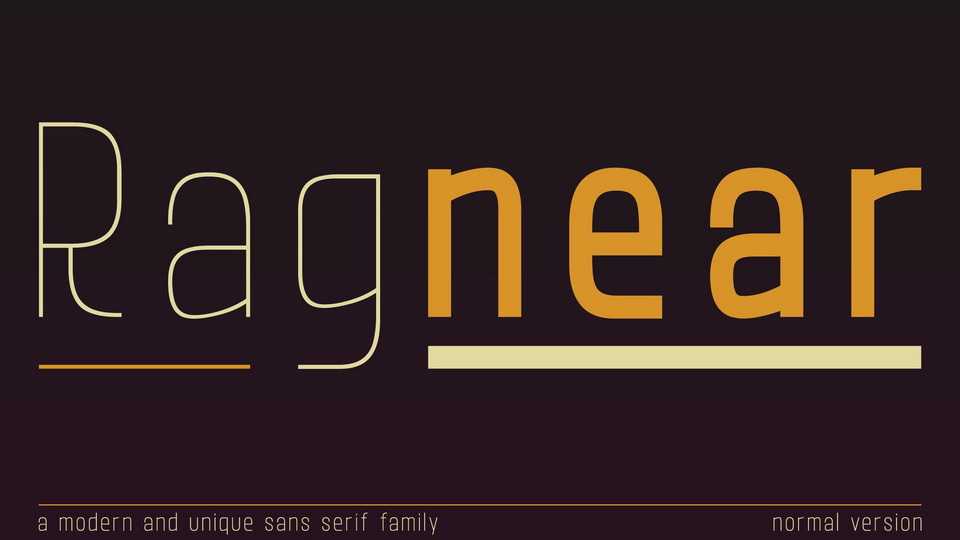
Download Ragnear Normal font, a clean sans serif typeface that adopts a modern style. The uniqueness of each letter gives a strong and charismatic impression.
Designer: Shanaya Creative